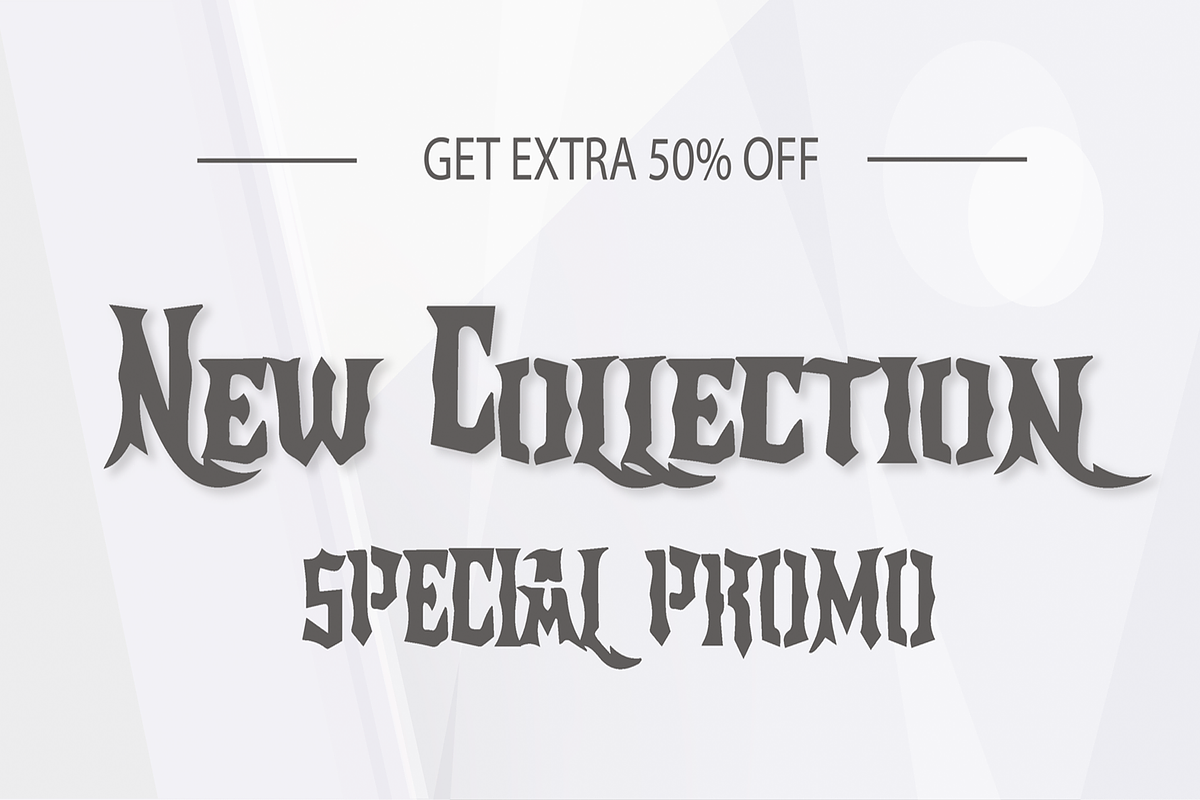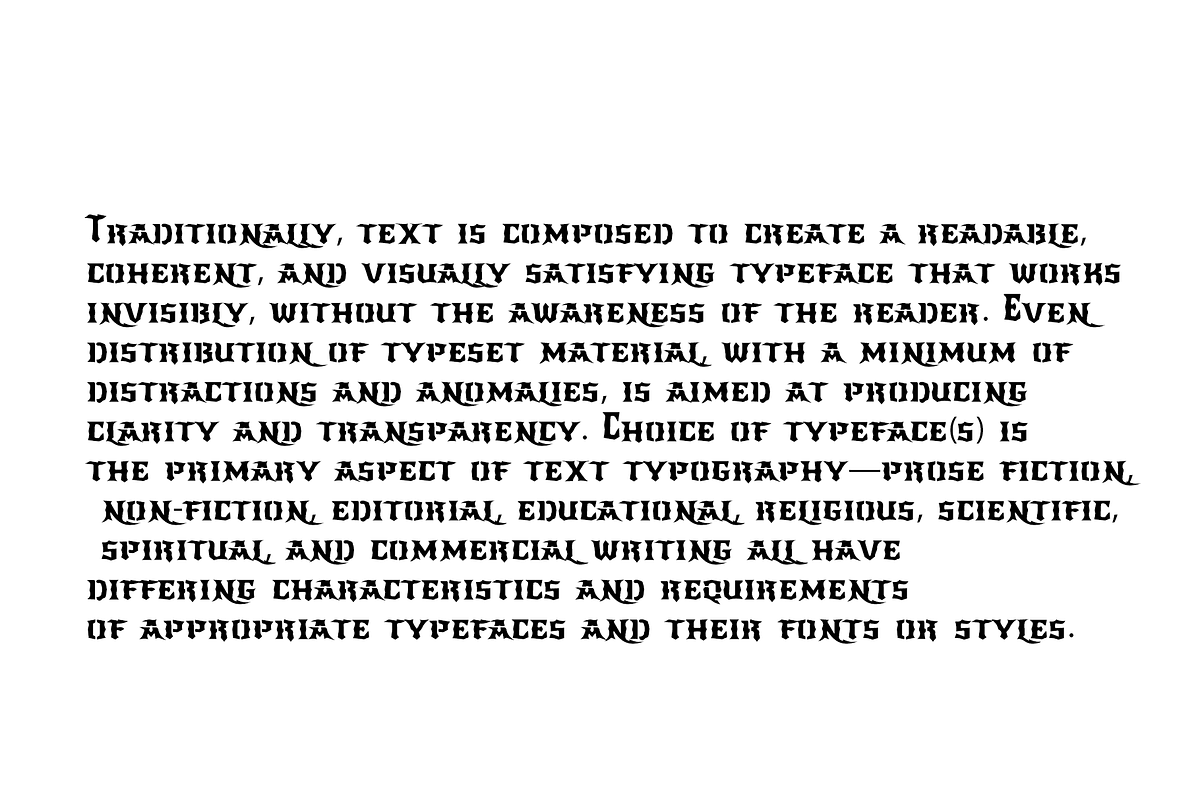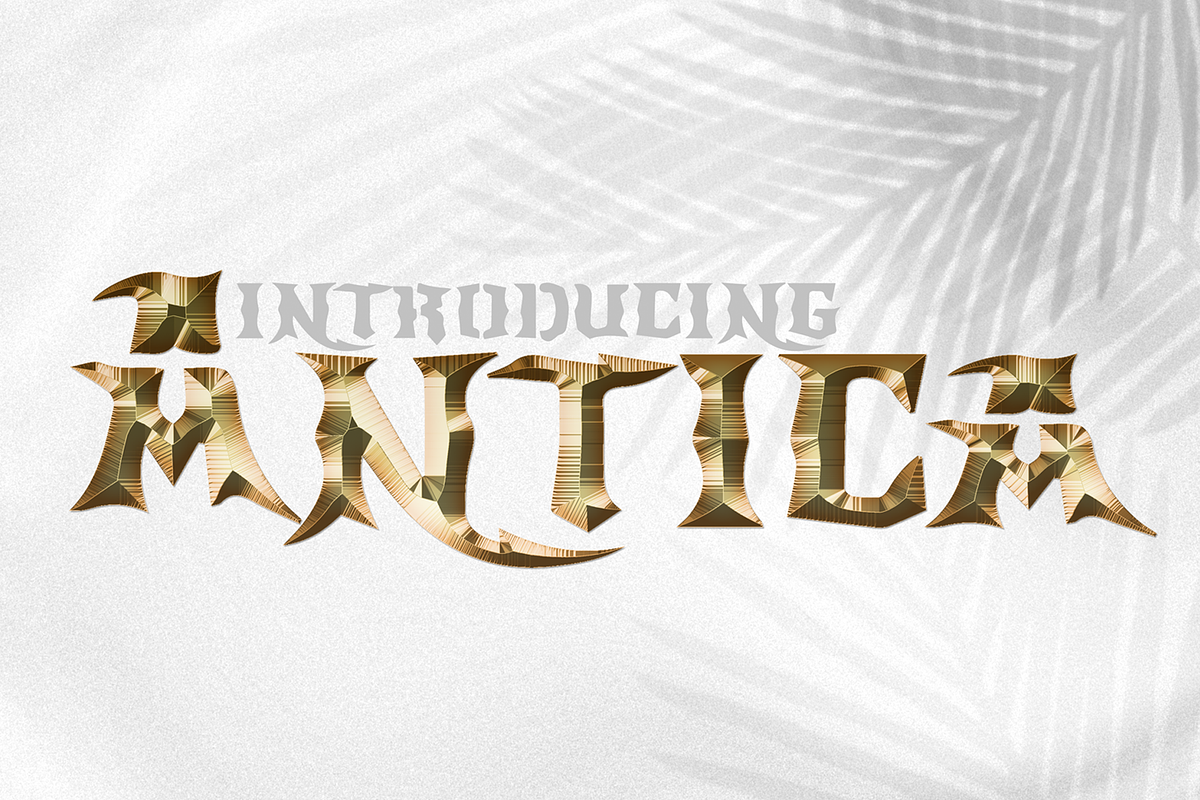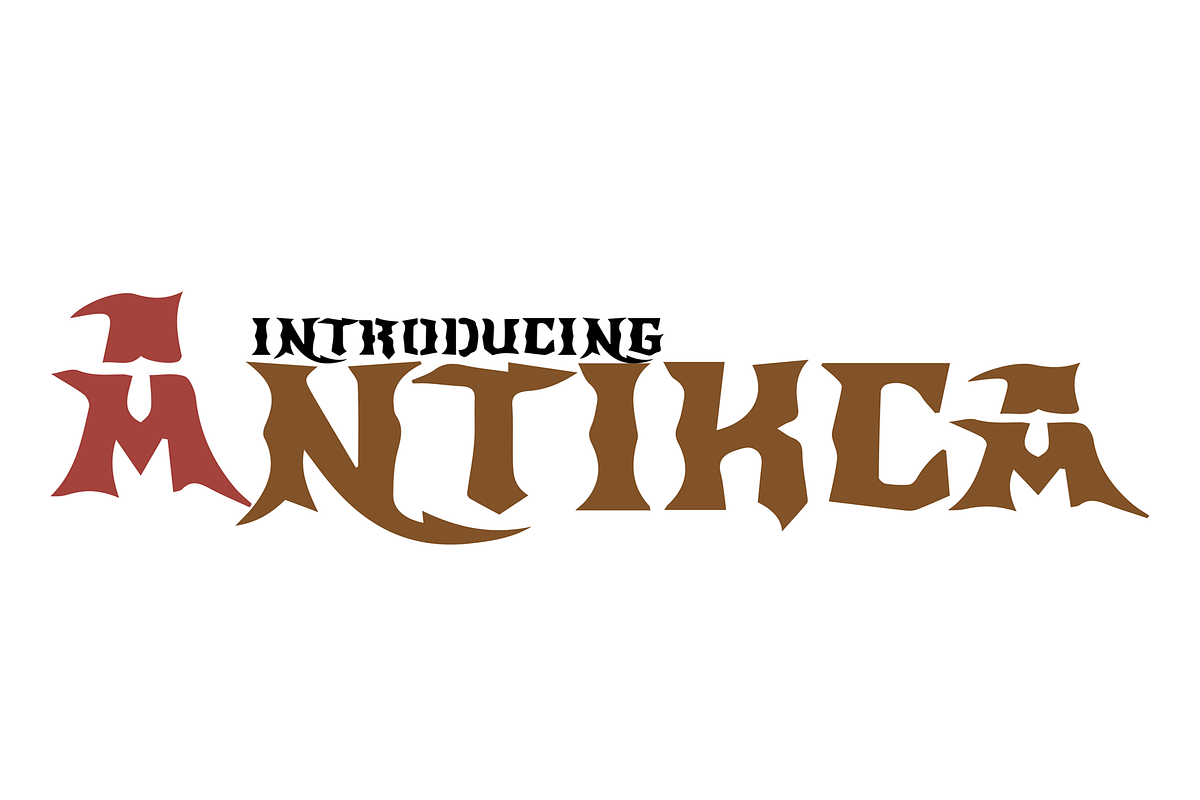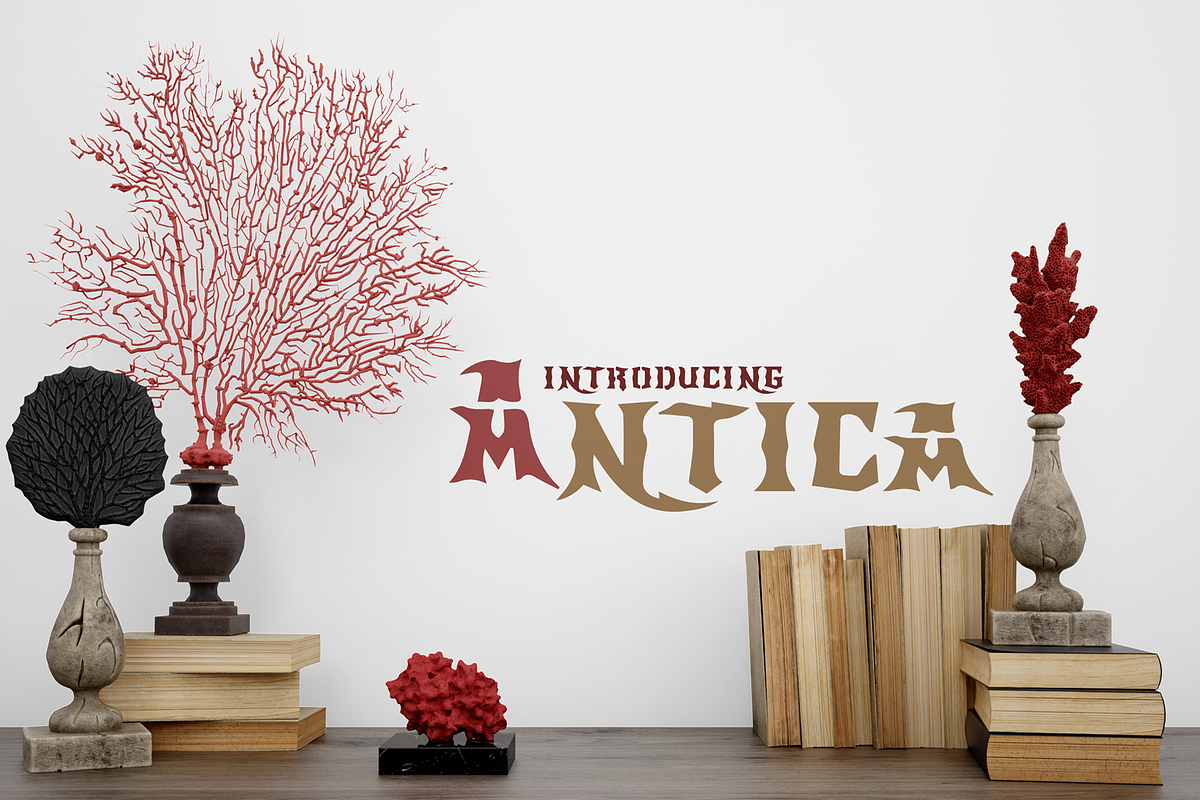
Antica
Antica is a chic and distinct Blacklettred font. No matter the topic, this font will be an incredibly asset to your fonts’ library, as it has the potential to elevate any creation.